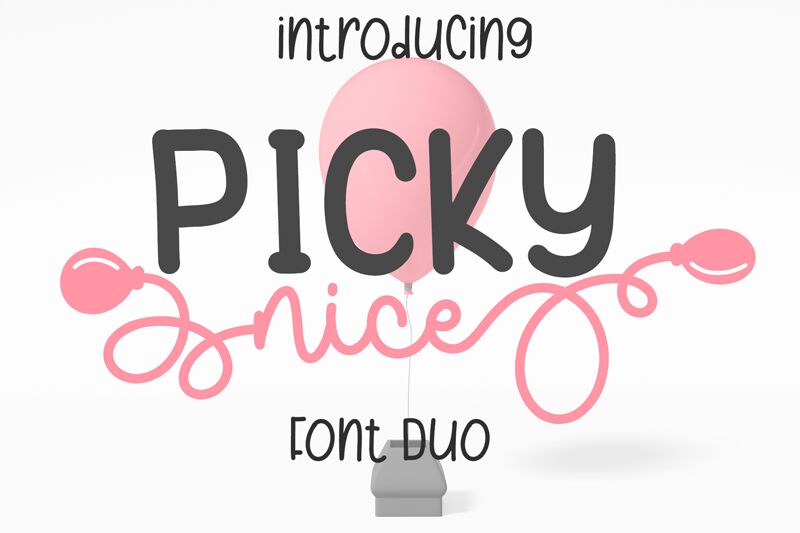
Picky Nice Monoline is a delightful addition to the Picky Nice font family, designed by Bearytype. This cute handwritten font style features a monoline design, giving it a clean and modern look. With its semi-light weight, it strikes the perfect balance between elegance and playfulness.
Suitable for a wide range of projects, from children's book covers to greeting cards, Picky Nice Monoline adds a touch of whimsy and charm.
Let your creativity flow with this adorable typeface that will surely make your designs stand out!